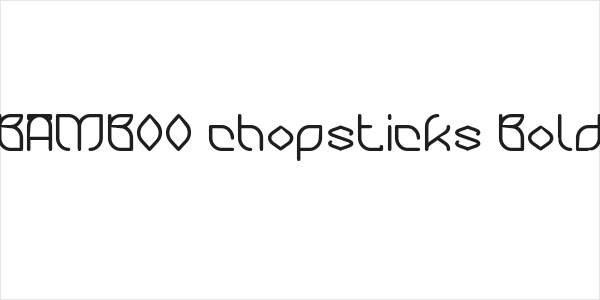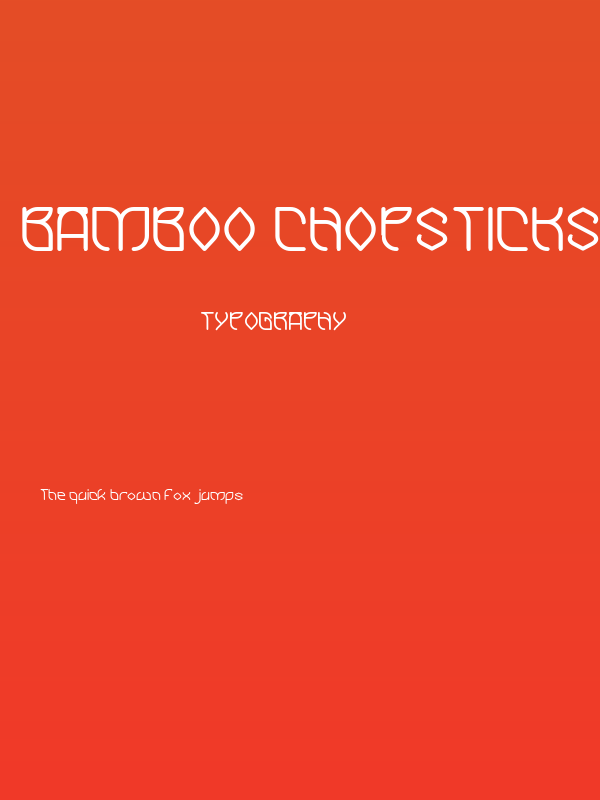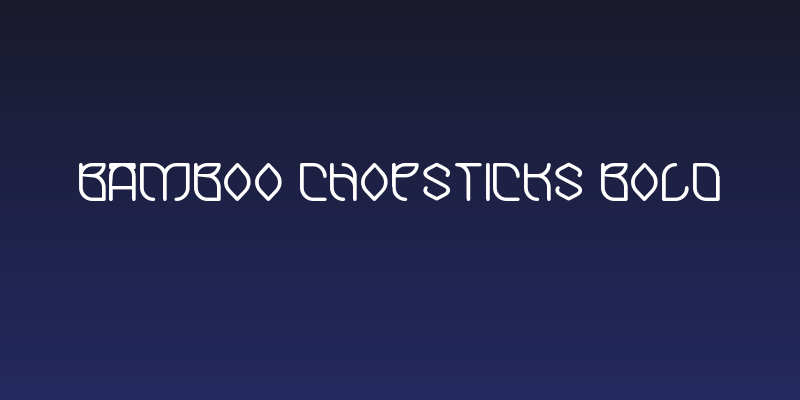
BAMBOO chopsticks Bold Font
BAMBOO chopsticks Bold Description
This font features a unique, geometric design with rounded edges and a modern aesthetic. The characters are constructed with consistent stroke widths, creating a harmonious and balanced appearance. The uppercase letters are bold and structured, while the lowercase letters maintain a similar style with a slightly more playful touch. The numerals and special characters follow the same design principles, ensuring uniformity across all glyphs. This font's distinct style makes it stand out, offering a contemporary feel that is both eye-catching and versatile.
| Proposed Projects | Ideal for branding, packaging, modern art projects, and digital media. |